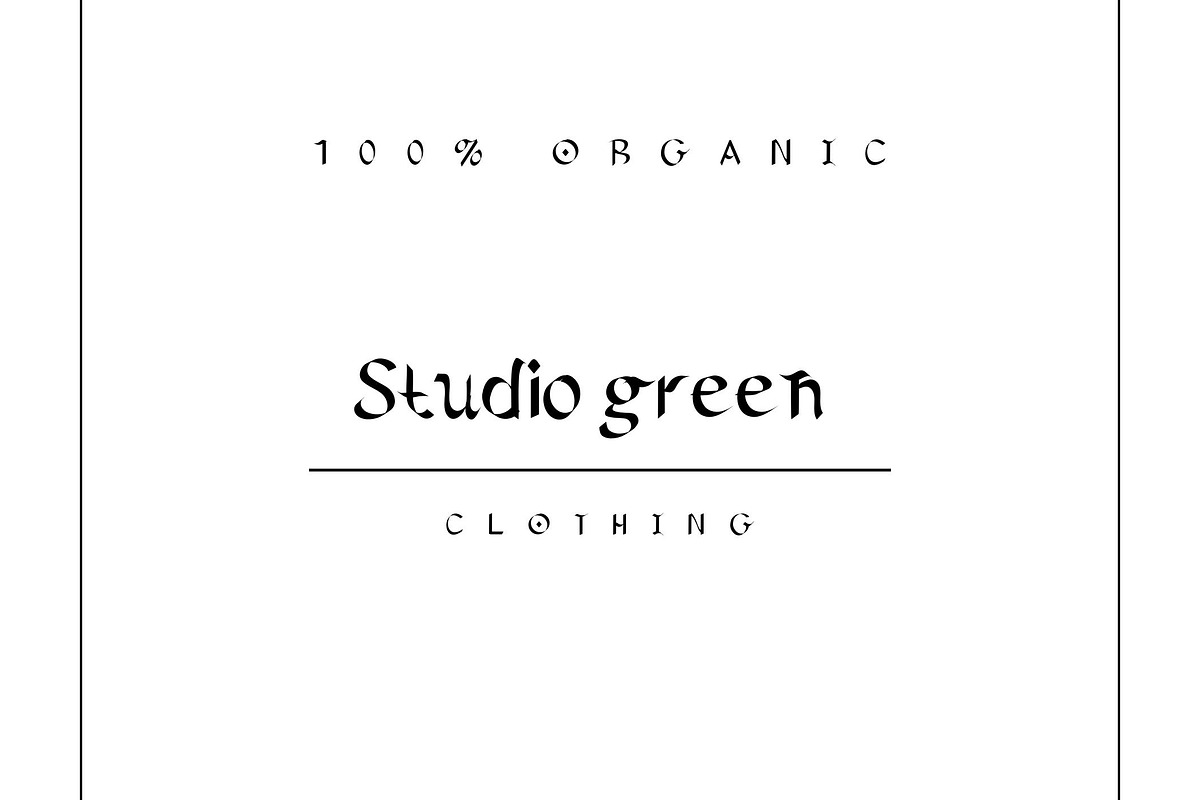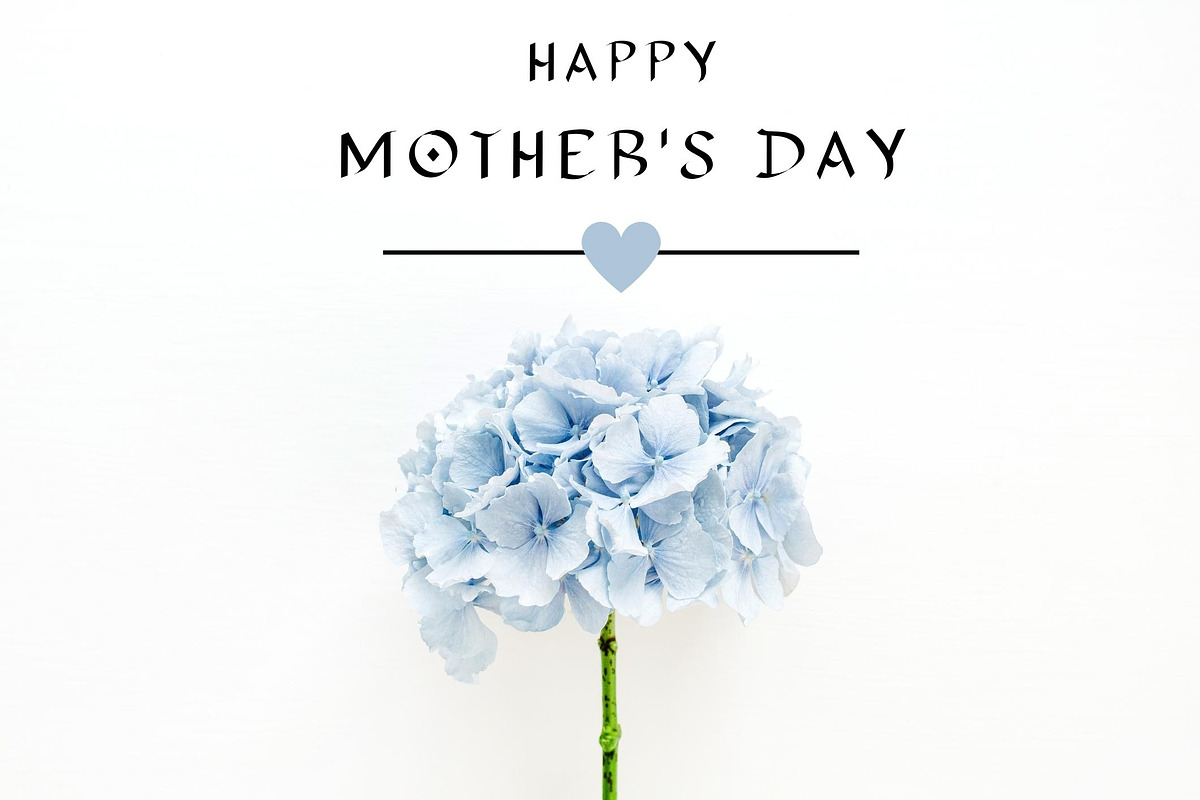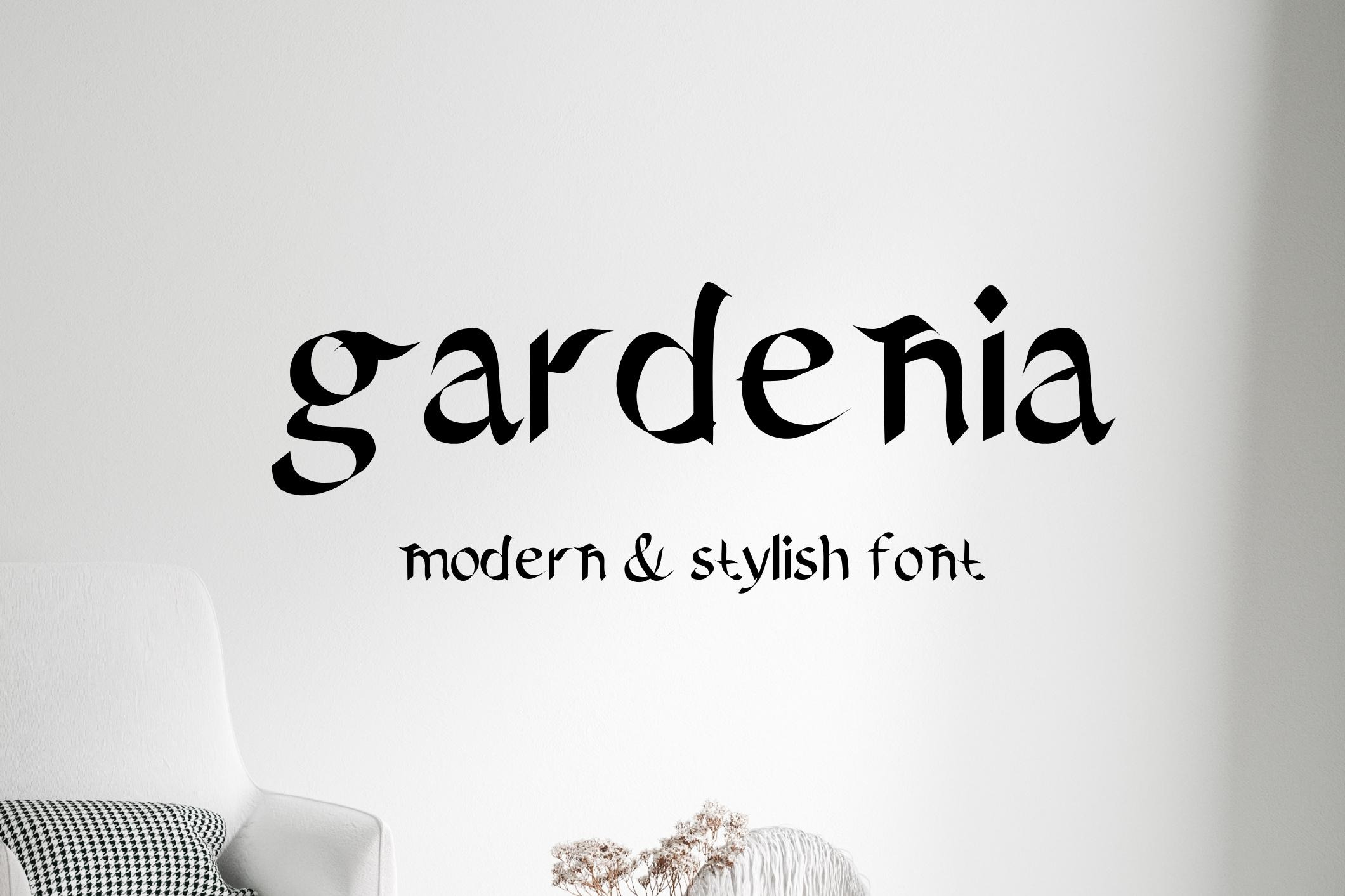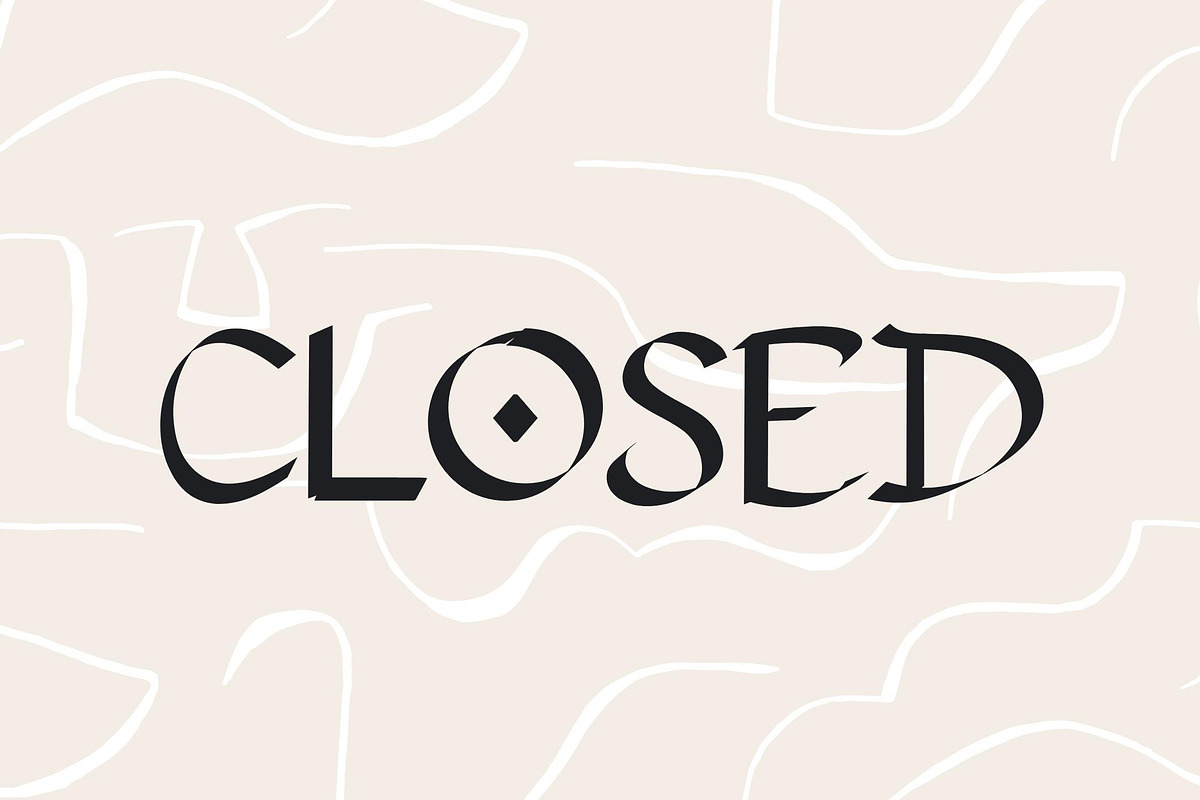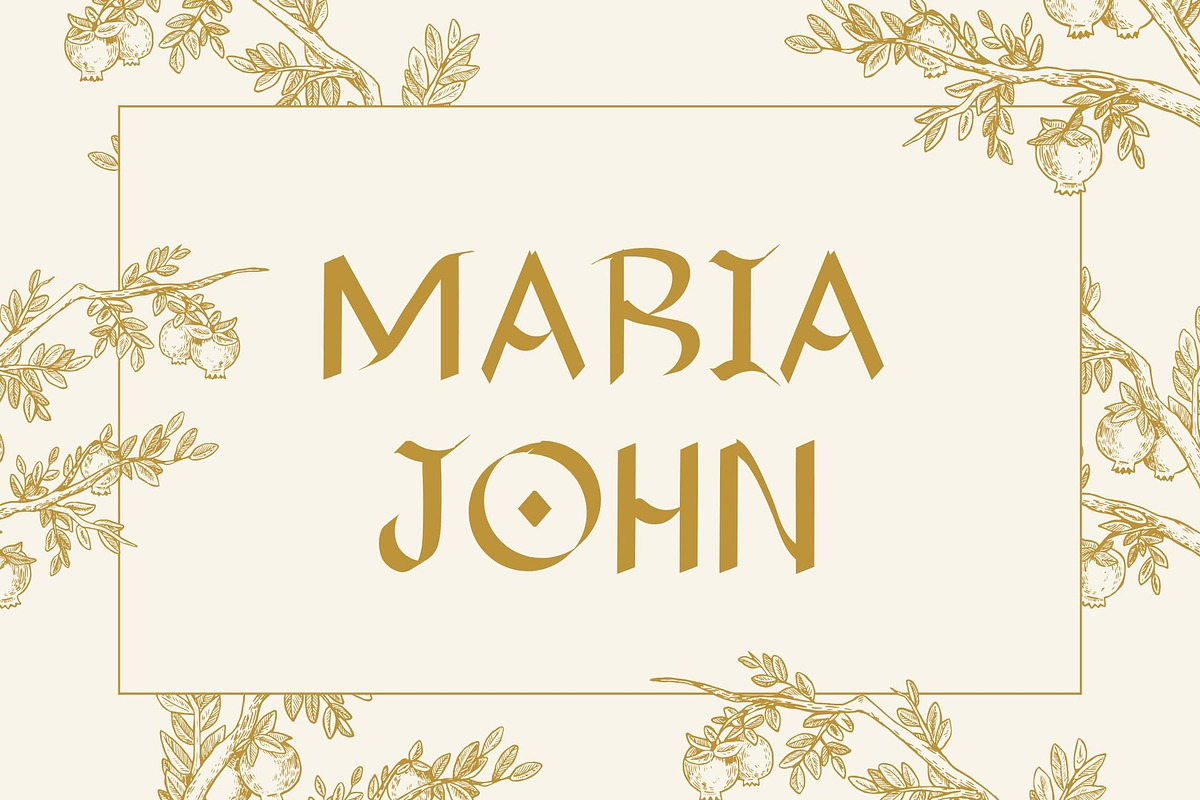
Gardenia - modern font
Gardenia is a modern font.
This font is perfect for advertising, headings, blogs, logos, branding and more!
This font would pair well with a script style & also it’s speak loud it’s own.
Features: Uppercase, Lowercase, Numbers & punctuation.